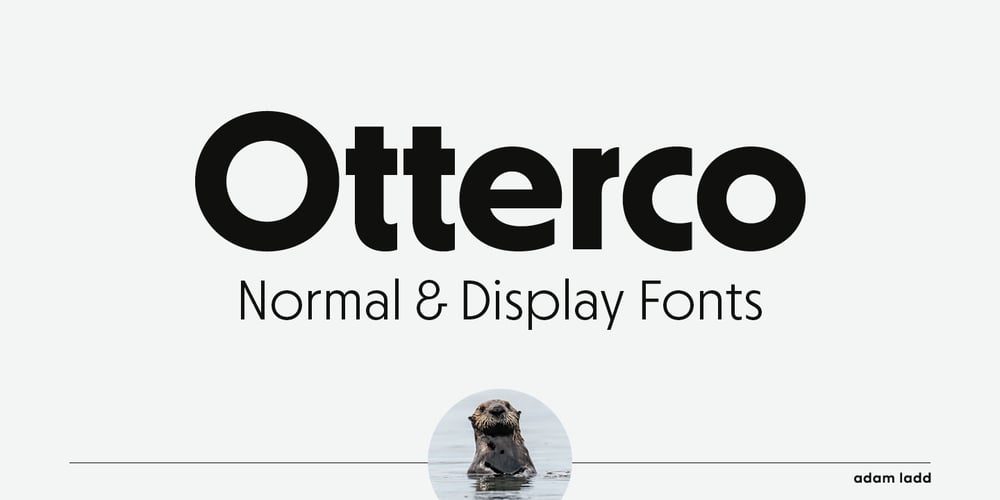
Otterco Font Family was designed by Adam Ladd and published by Adam Ladd Design. Otterco contains 18 styles and family package options. Otterco is a geometric sans serif with varied round and narrow characters. Blending a touch of retro and modern qualities, this typeface is clean and neutral but not boring. It’s professional yet unique and fun. The contrast in character widths creates a distinct visual rhythm and the vertical cut terminals keep it consistent, strong, and sharp looking. Constructed with a large x-height and low stroke contrast, it can fit a variety of applications.